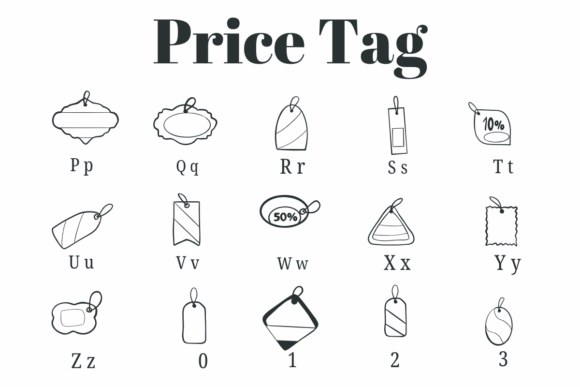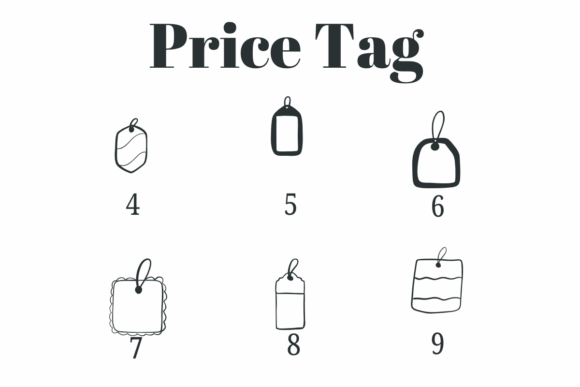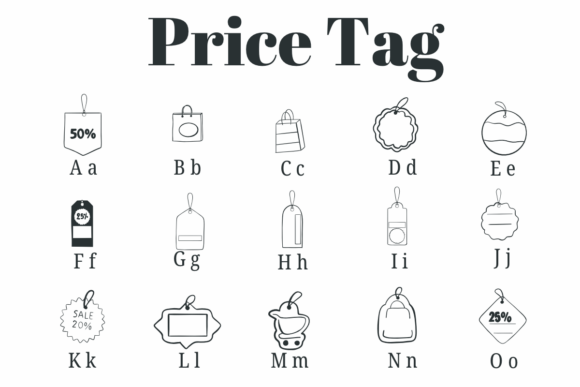
Enhance your marketing and craft projects instantly with Price Tag , a practical and playful dingbat font that delivers a collection of essential hand-drawn tags and labels.
The Price Tag dingbats font is a specialized collection of graphic glyphs, replacing standard letters and numbers with various hand-sketched, creative tags, labels, and shopping bag illustrations This unique Price Tag dingbat typeface offers a fun, whimsical, and distinctly artisanal touch to your promotional materials and crafts, allowing users to drop in complex visual elements with a simple keystroke.